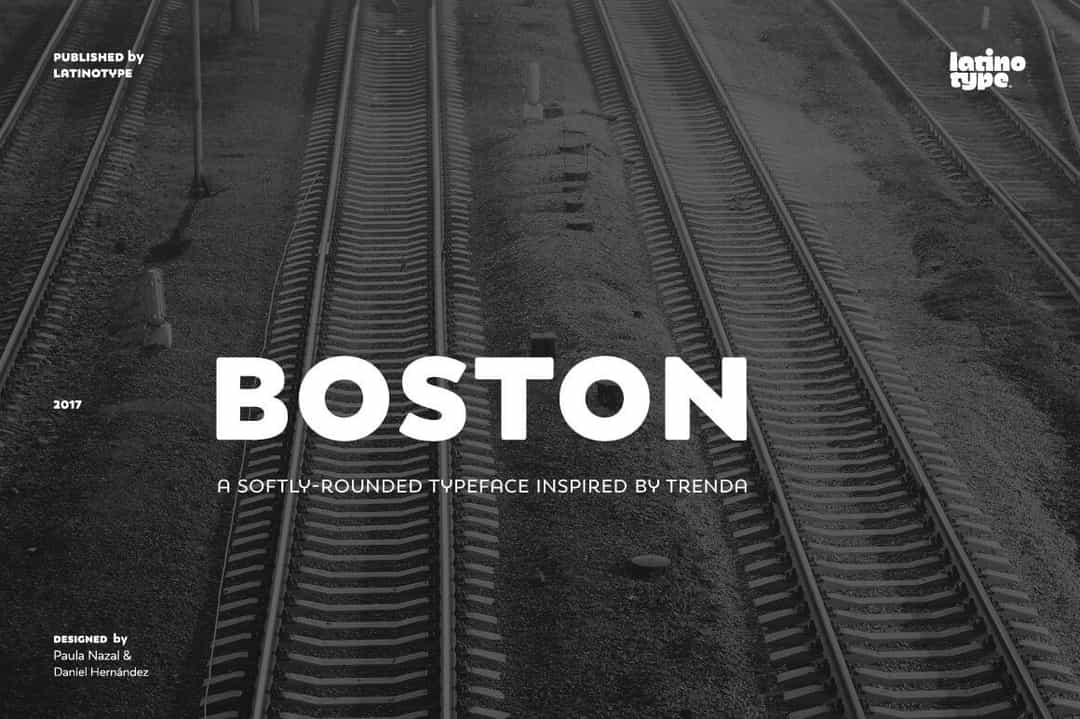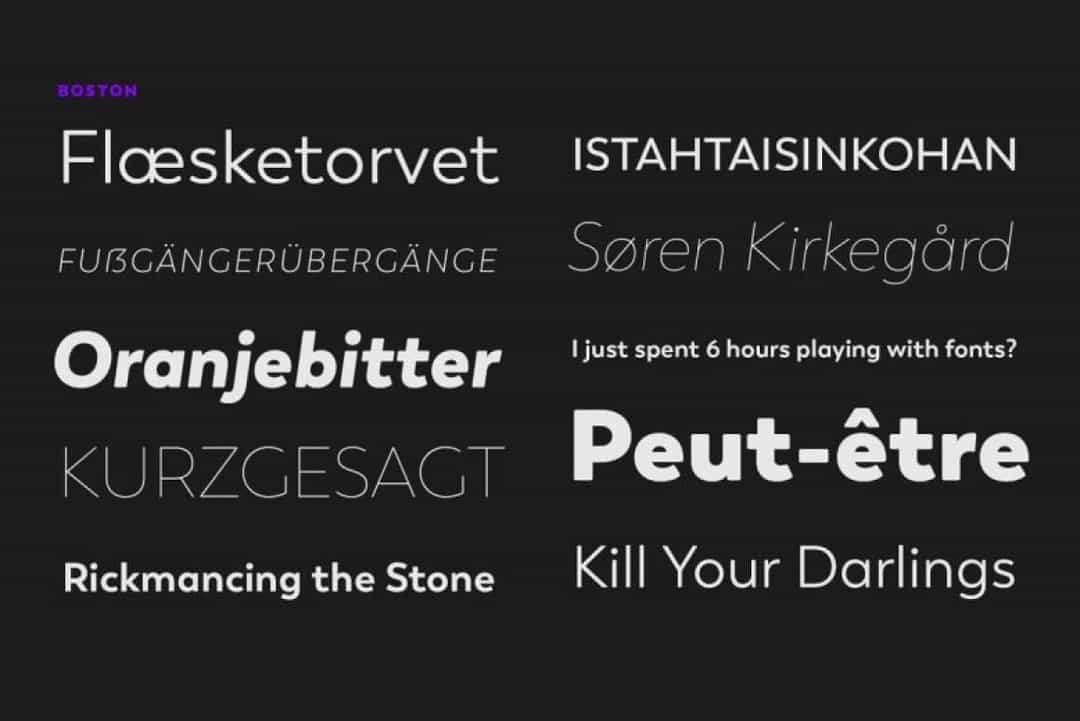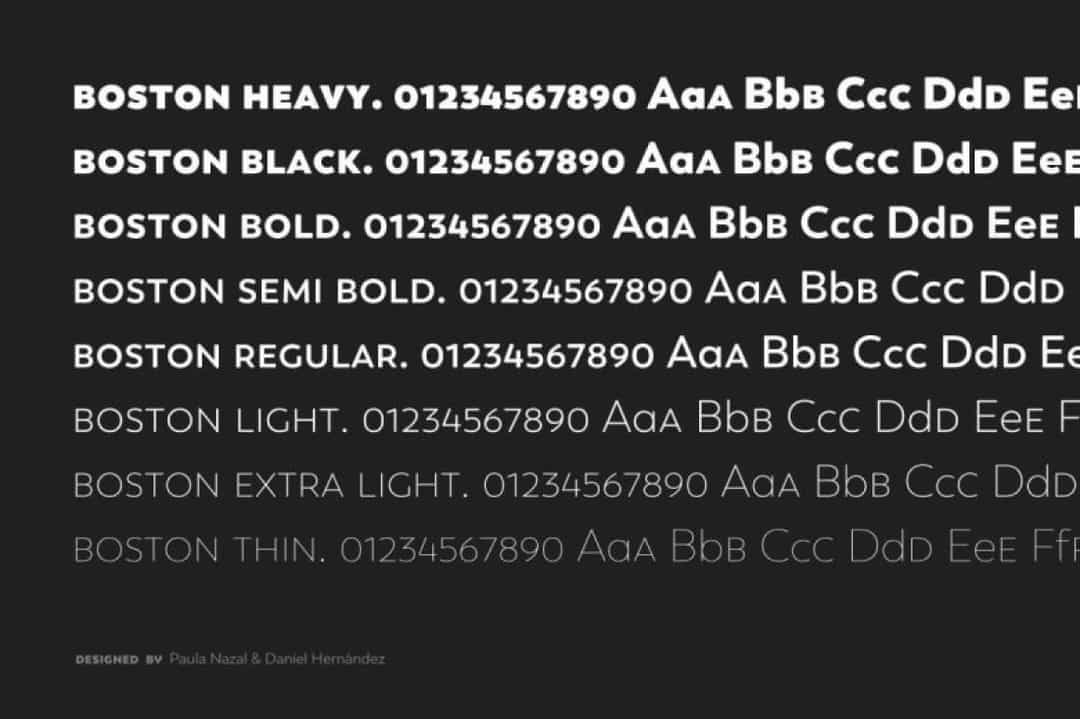
Boston Sans Serif Font is a slightly rounded typeface inspired by Trenda, a geometric sans serif designed by Latinotype in 2013 and widely accepted. This new font boasts an expanded character set featuring both lowercase and uppercase characters in various weights – perfect for creating legible documents!